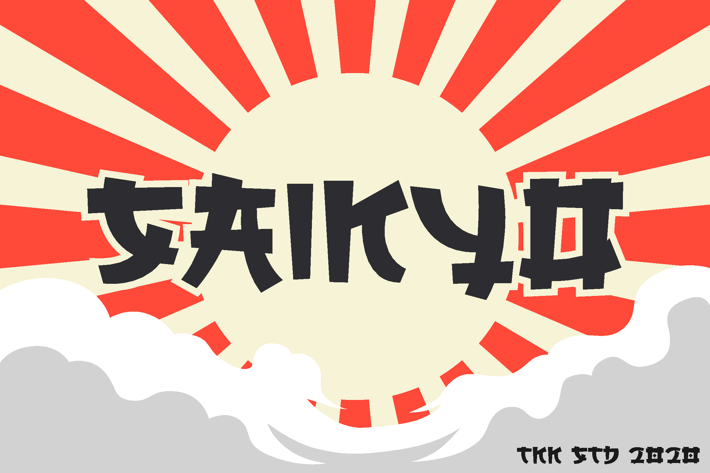
SAIKYO - Japanese Display Font
SAIKYO - Faux Japanese Font
Saikyo is a high-impact Japanese brush display typeface blending bold structure with cultural energy—ideal for retro posters, gaming titles, and martial arts branding. Its brushstroke style features sharp terminals, aggressive curves, and heavy proportions, echoing the drama of vintage anime and traditional calligraphy.
The vibe is intense, nostalgic, and cinematic, with strong Eastern influences that make it perfect for film posters, YouTube thumbnails, Japanese restaurants, and comic-inspired packaging. Its exaggerated weight and distinctive shapes help capture attention instantly in both digital and print formats.
Bring your visual storytelling to life with Saikyo, whether you're branding a ramen shop, designing a YouTube header, or developing a gaming UI. This font speaks directly to audiences who crave retro action, warrior narratives, or Japanese subculture aesthetics. It delivers more than just words—it creates atmosphere. Saikyo is ideal for making bold statements where tradition meets power.
Cinematic Cultural Presence
- Inspired by Japanese show posters, sumo, samurai, and 80s manga energy
- Brush-style with heavy structure and commanding visual flow
Optimized for Action & Drama
- Perfect for movie titles, anime intros, game branding, martial arts promotions
- Adds high drama and cultural relevance in one typeface
* Authentic & Unique Look
- Brush lettering with intense form and contrast
- Distinctive letterforms that stand apart in busy compositions